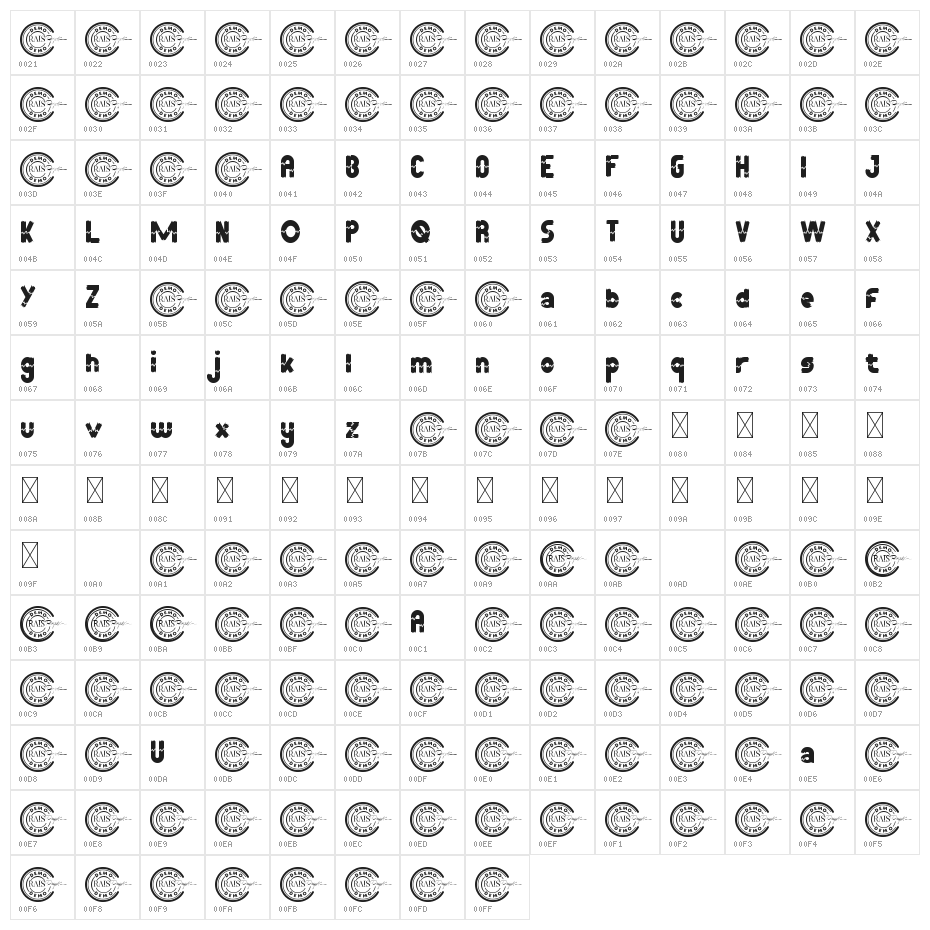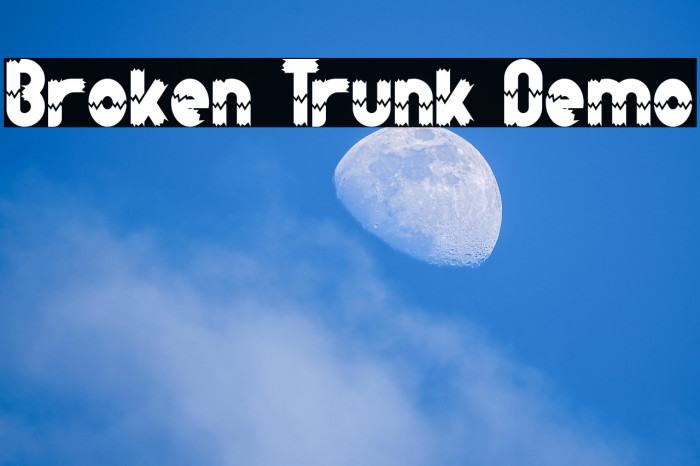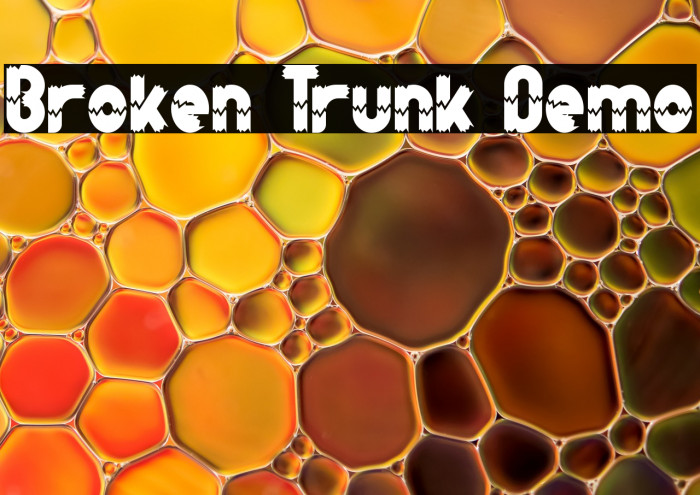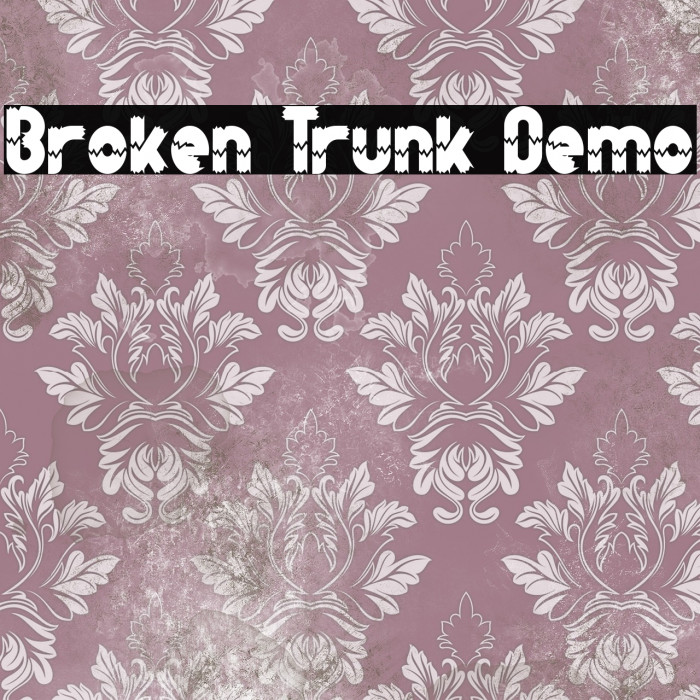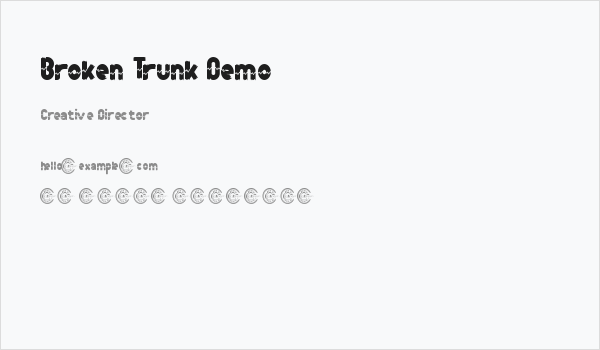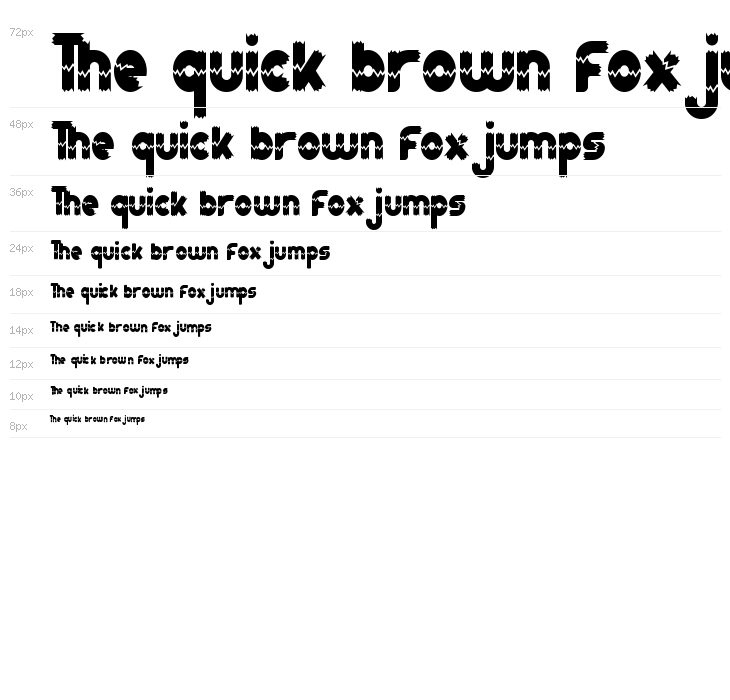
Broken Trunk Demo Font
Broken Trunk Demo Description
This font features a bold and striking design with a jagged, broken appearance that gives it a unique and edgy look. The characters are heavily stylized, with sharp, irregular edges that create a sense of movement and energy. This design choice makes the font stand out, making it ideal for attention-grabbing headlines or creative projects that require a distinctive visual impact. The uppercase and lowercase letters maintain a consistent style, ensuring cohesion across different text sizes. The numbers and special characters are equally bold and maintain the same jagged aesthetic, ensuring uniformity throughout any text composition.
| Overall Style | Modern, Edgy |
| Proposed Projects | Ideal for music album covers, event posters, branding for edgy or alternative products, and any project needing a bold, standout typeface. |